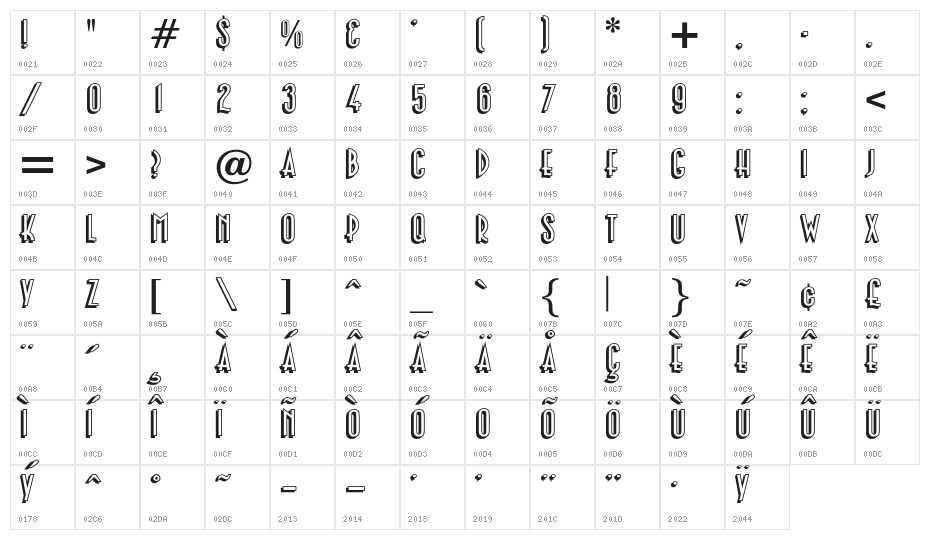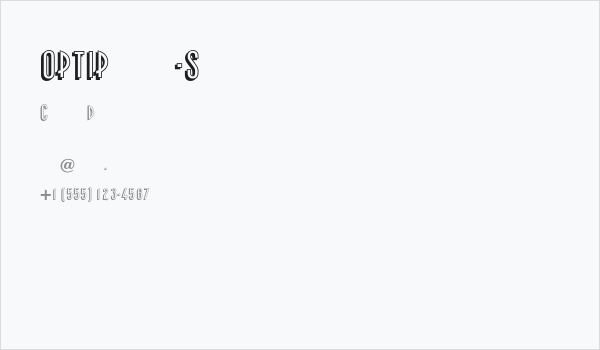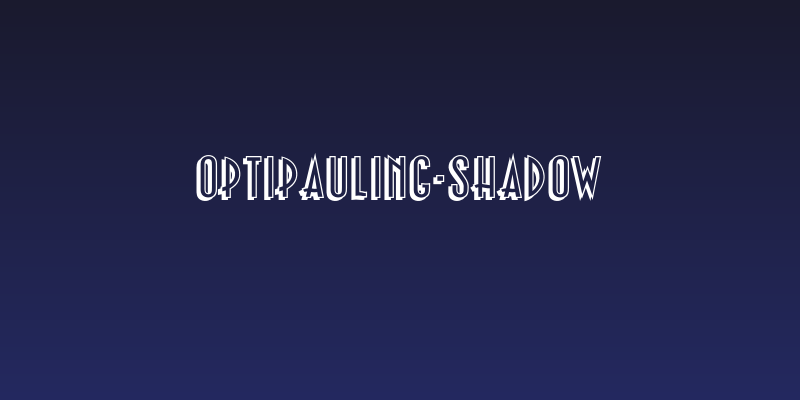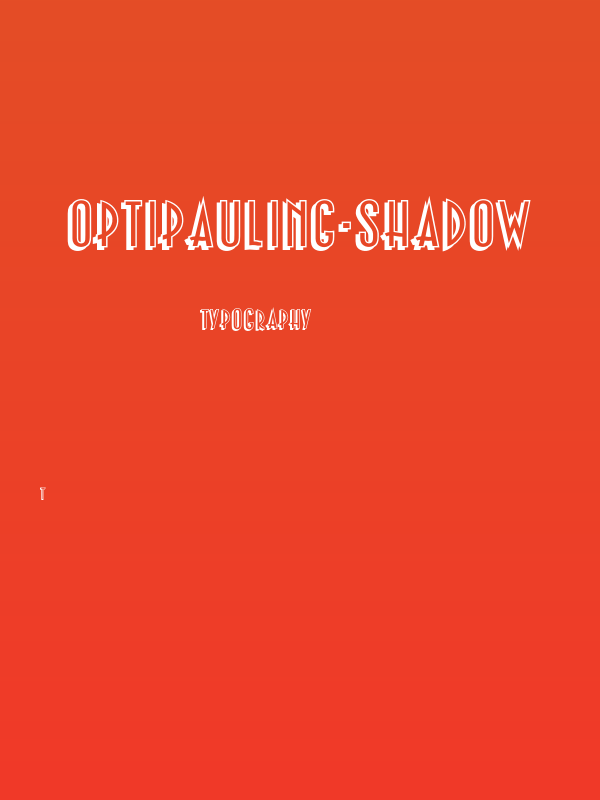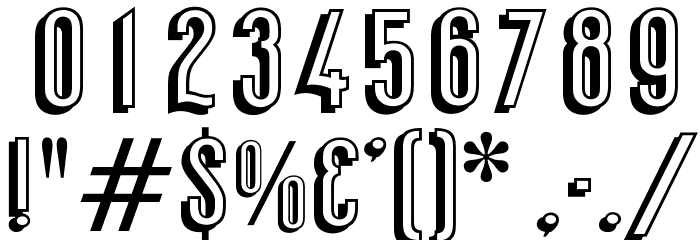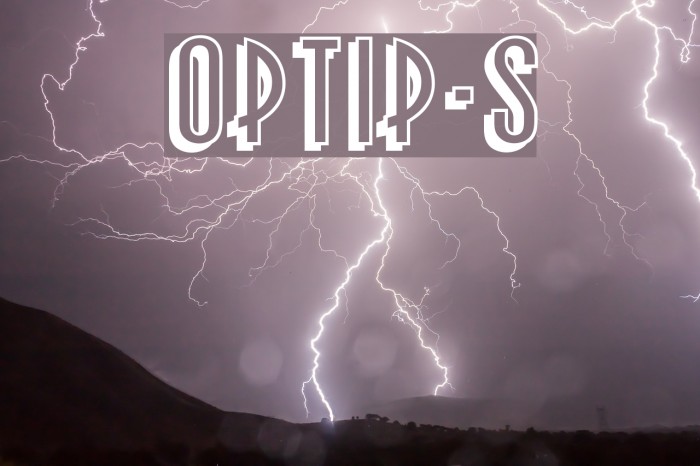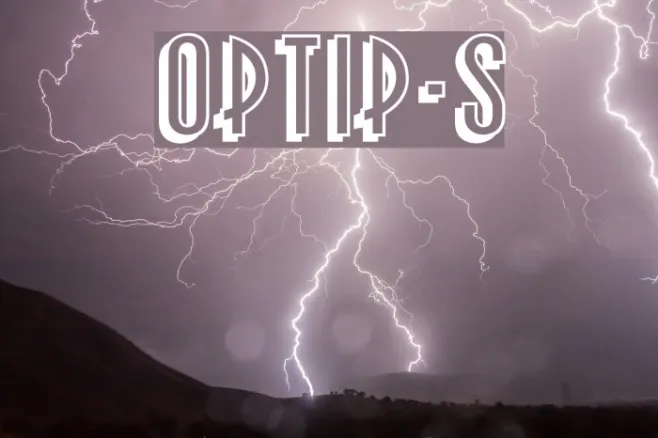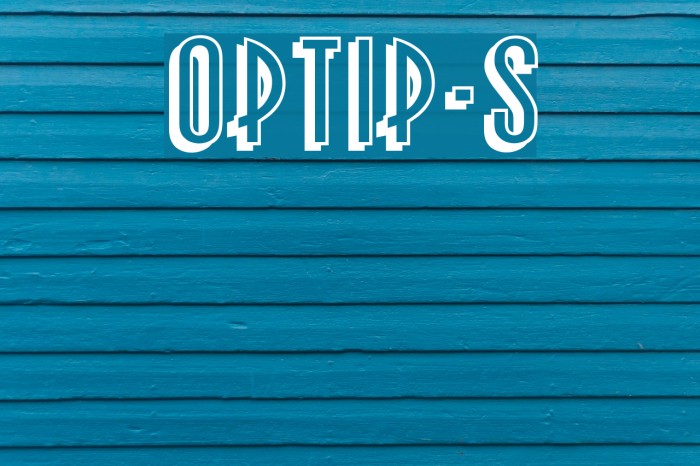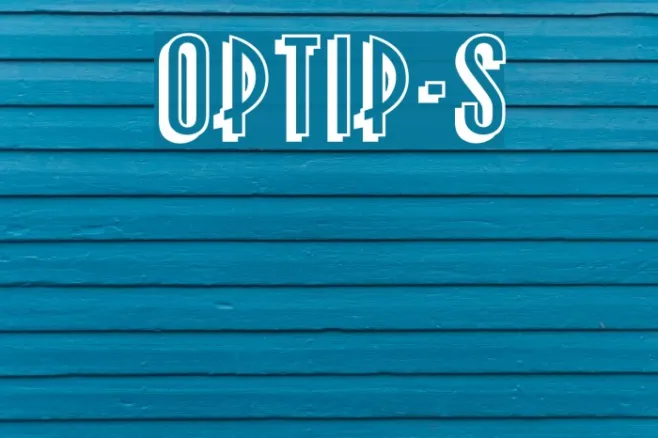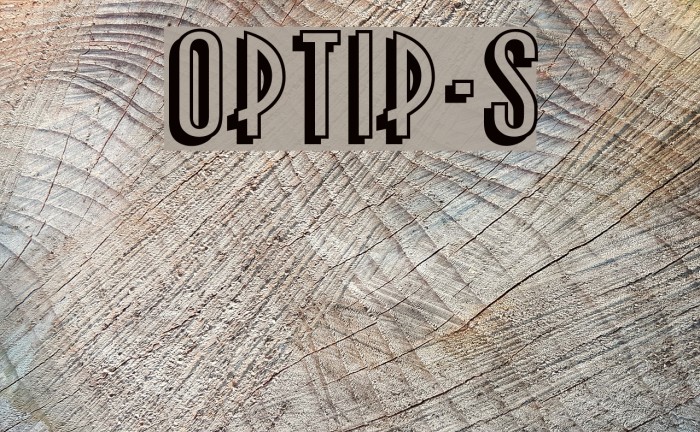
OPTIPauling-Shadow Font
OPTIPauling-Shadow Description
This font features a bold, decorative style with a shadow effect that gives it a three-dimensional appearance. The uppercase letters are characterized by sharp angles and geometric shapes, creating a dynamic and eye-catching look. The numbers and special characters maintain this bold, shadowed aesthetic, ensuring consistency across all glyphs. The font's unique style makes it ideal for projects that require a strong visual impact, such as posters, headlines, and branding materials. Its distinct shadow effect adds depth and dimension, making it stand out in any design.
| Proposed Projects | Ideal for posters, headlines, branding, and any design requiring a strong visual impact. |